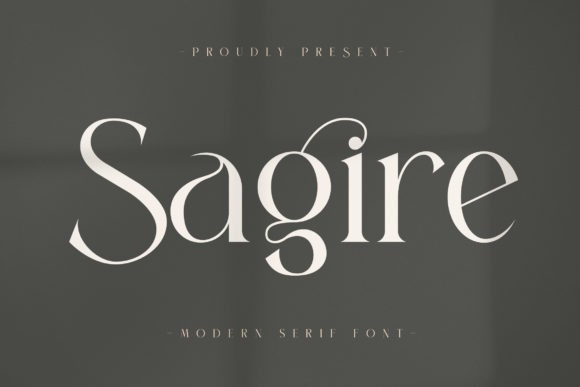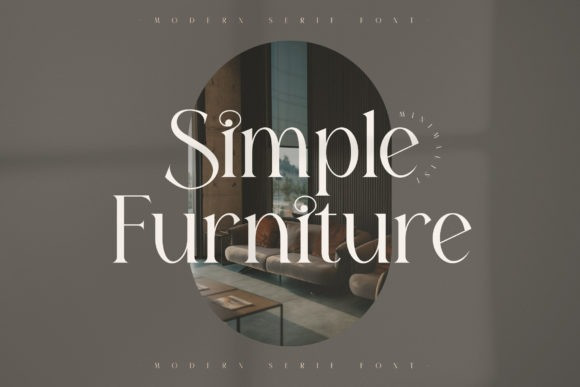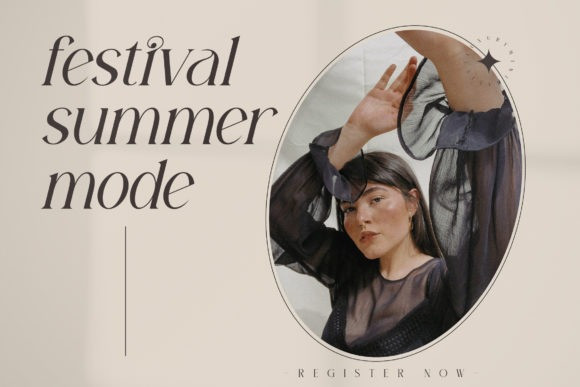
Sagire Font
Sagire is an elegant and stylish serif font.
This typeface is perfect for an elegant & luxury logo, book or movie title design, fashion brand, magazine, clothes, lettering, quotes, and so much more.